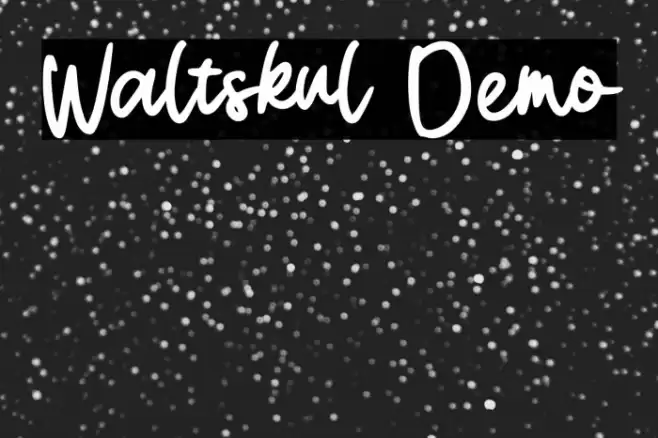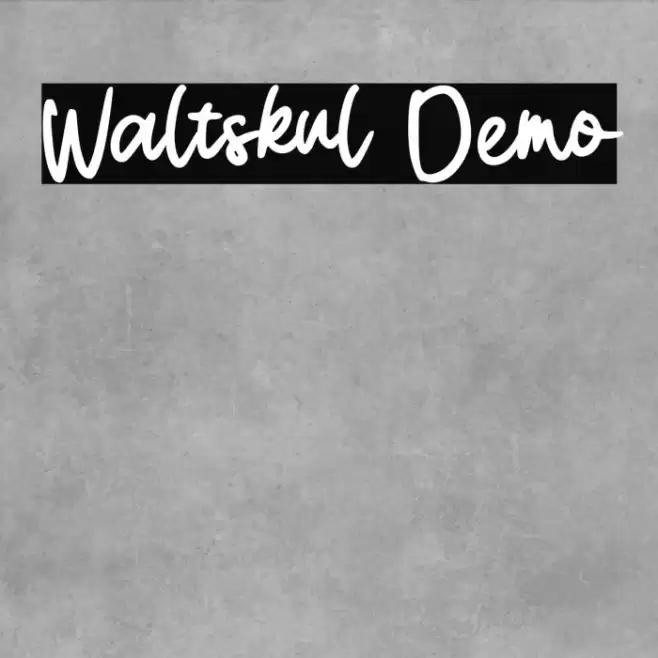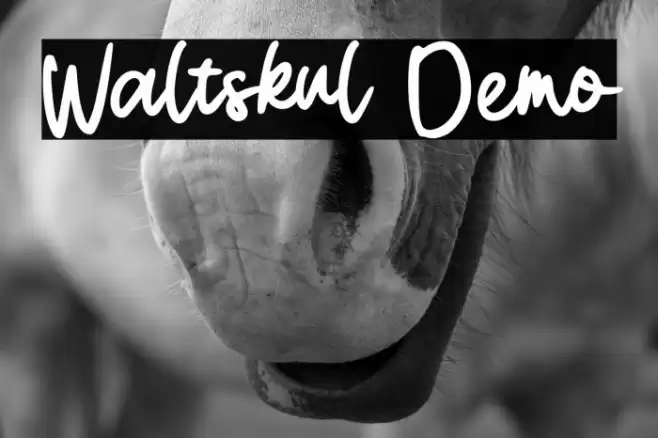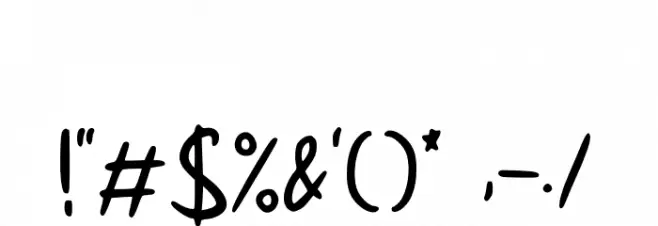
Waltskul Demo Font
Waltskul Demo Description
This font features a playful and casual handwritten style, characterized by its fluid and dynamic strokes. The uppercase letters are bold and slightly irregular, giving a sense of spontaneity and energy. The lowercase letters maintain a consistent flow, with rounded edges and a friendly appearance. The numerals and special characters follow the same lively and informal design, making the font suitable for creative and informal applications. Its overall appearance is approachable and modern, with a touch of whimsy.
A playful, handwritten font with dynamic strokes and a casual style from Regular fonts.
- Proposed Projects: Ideal for greeting cards, children's books, casual branding, and social media graphics.
- Overall Style: Casual, Playful
- Use Case: Logos, Headlines, Informal Text